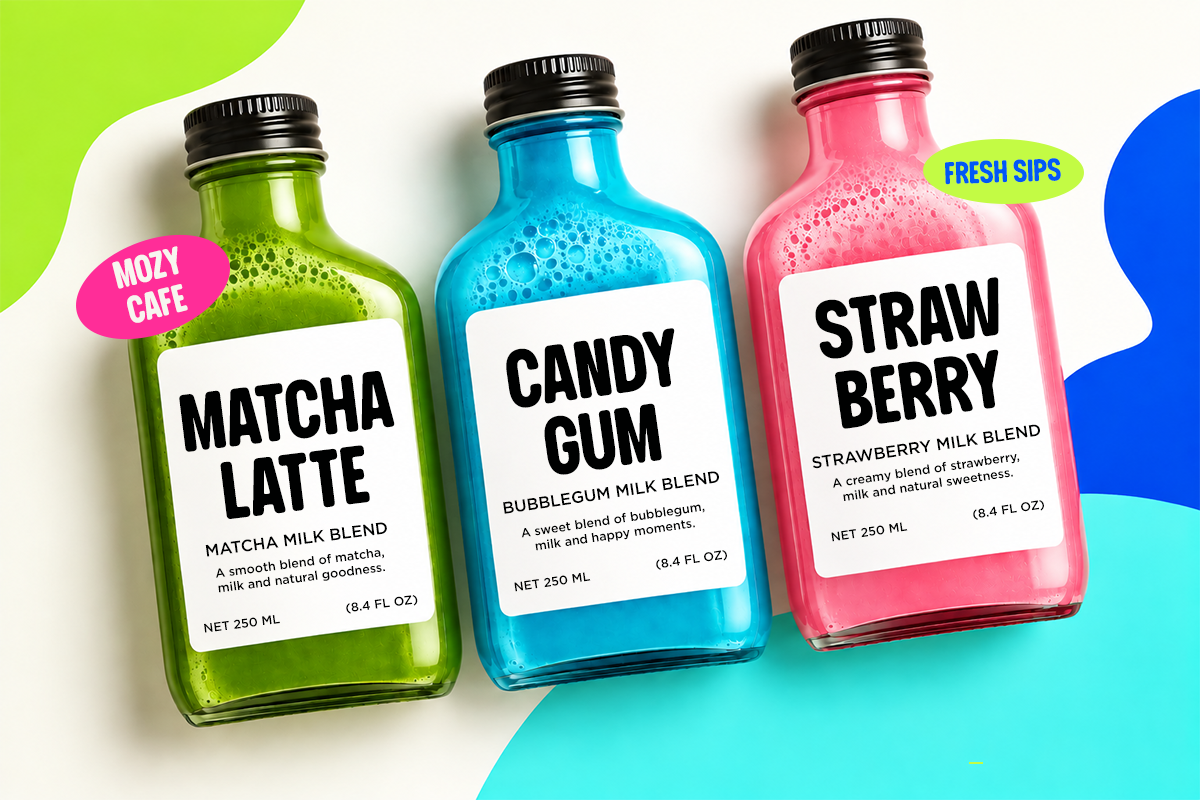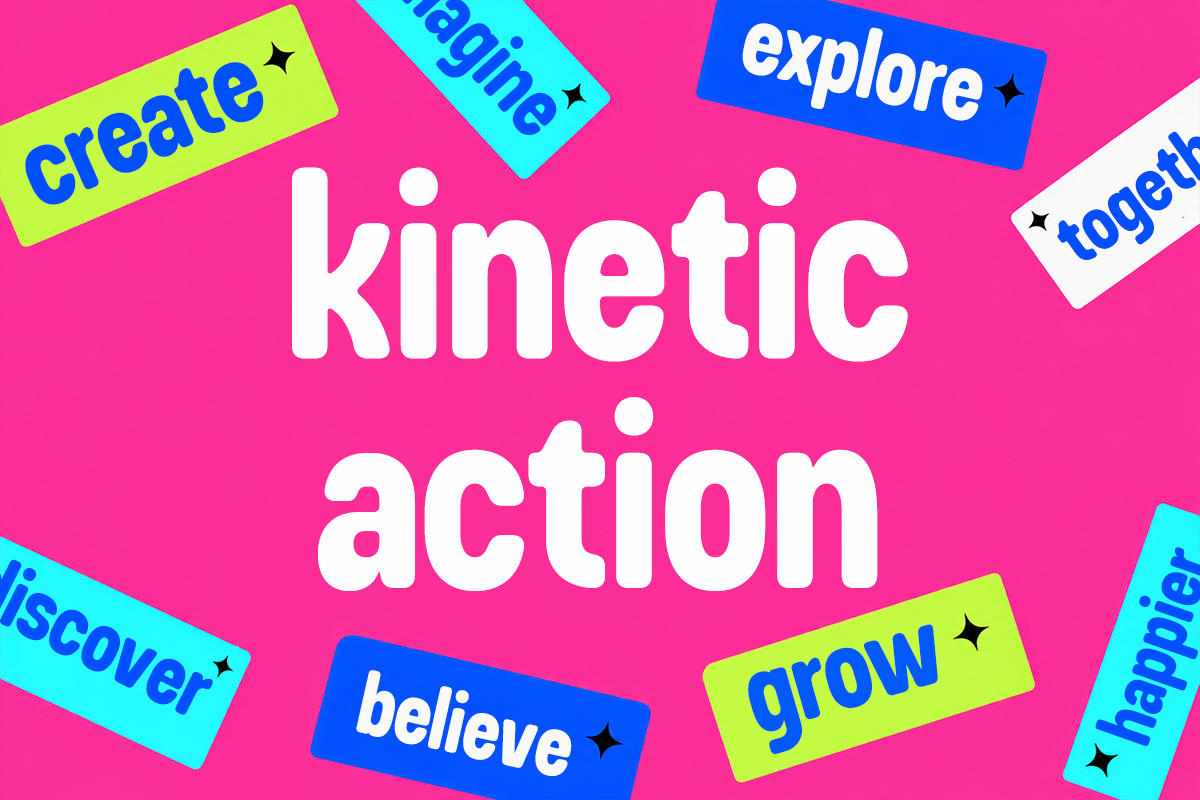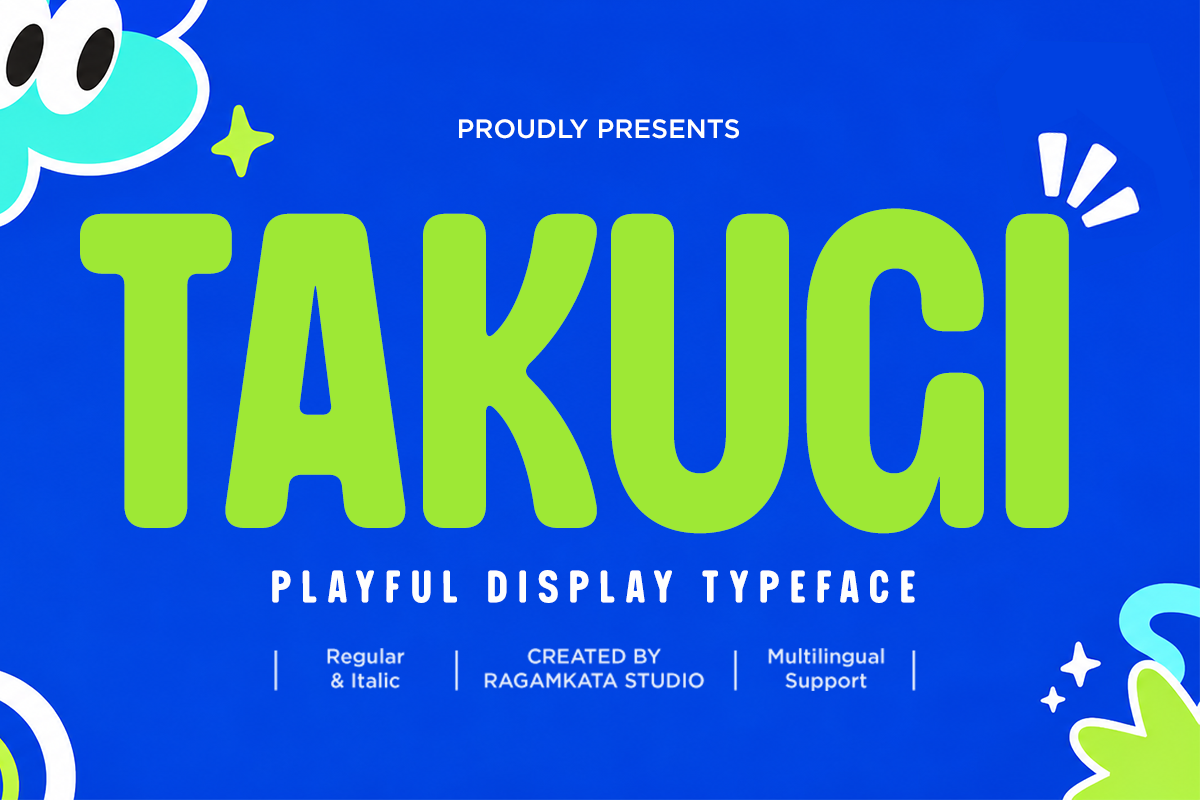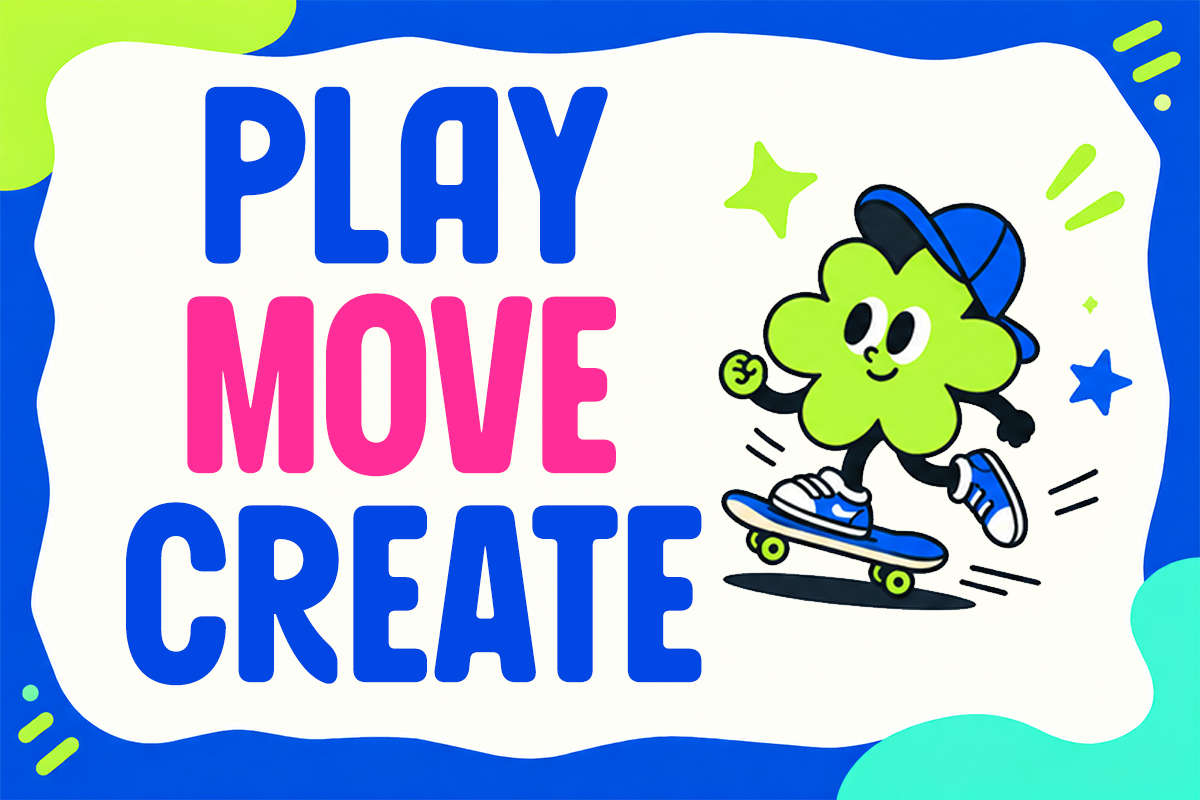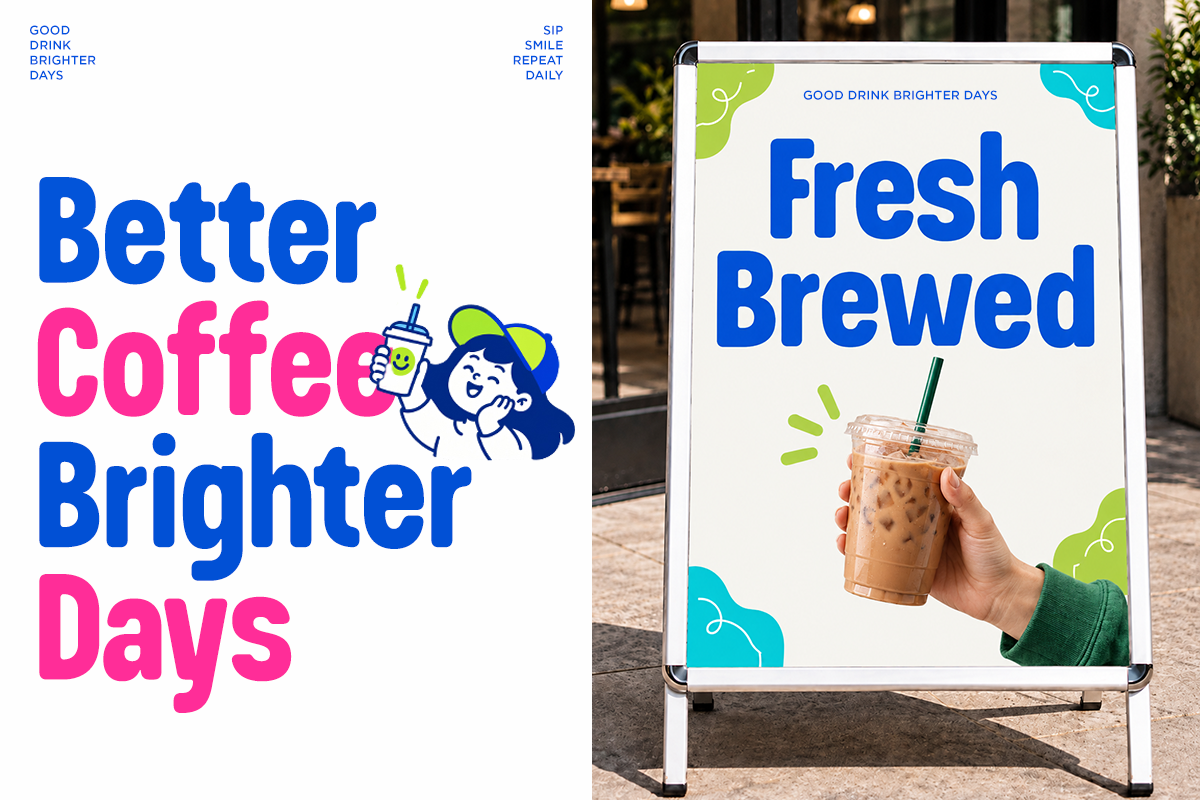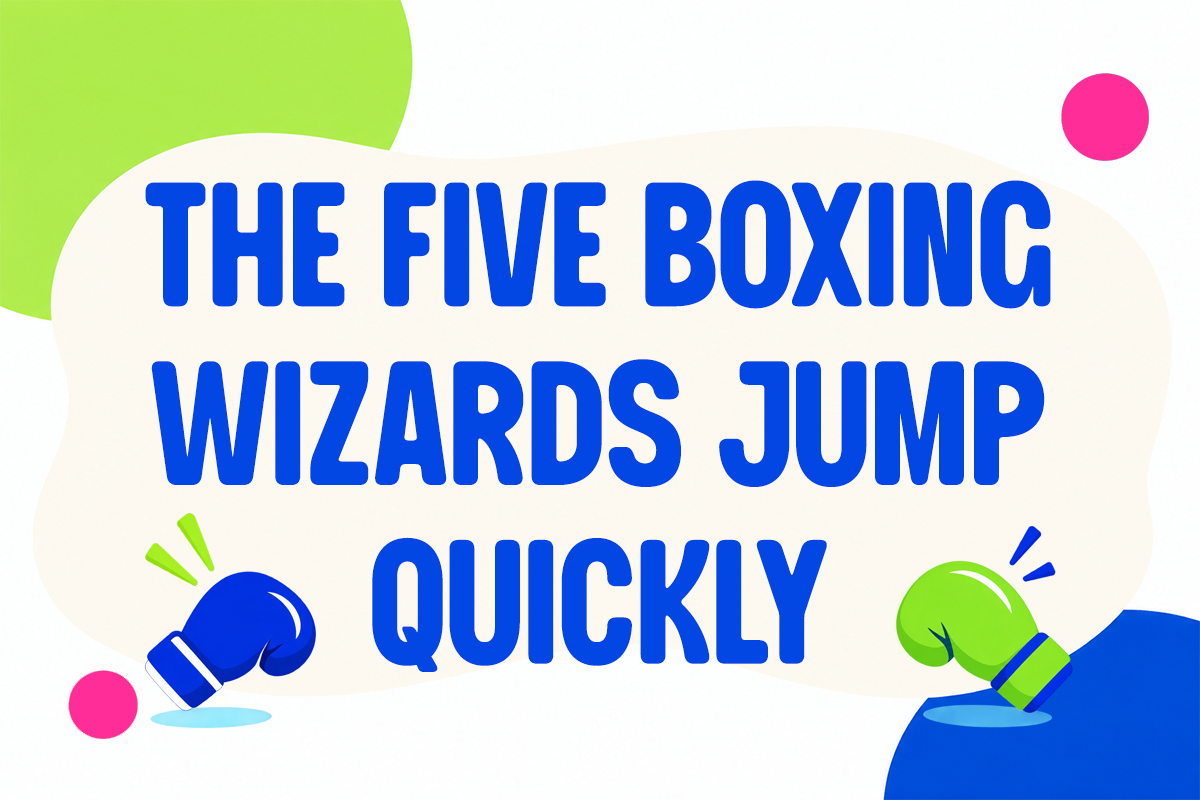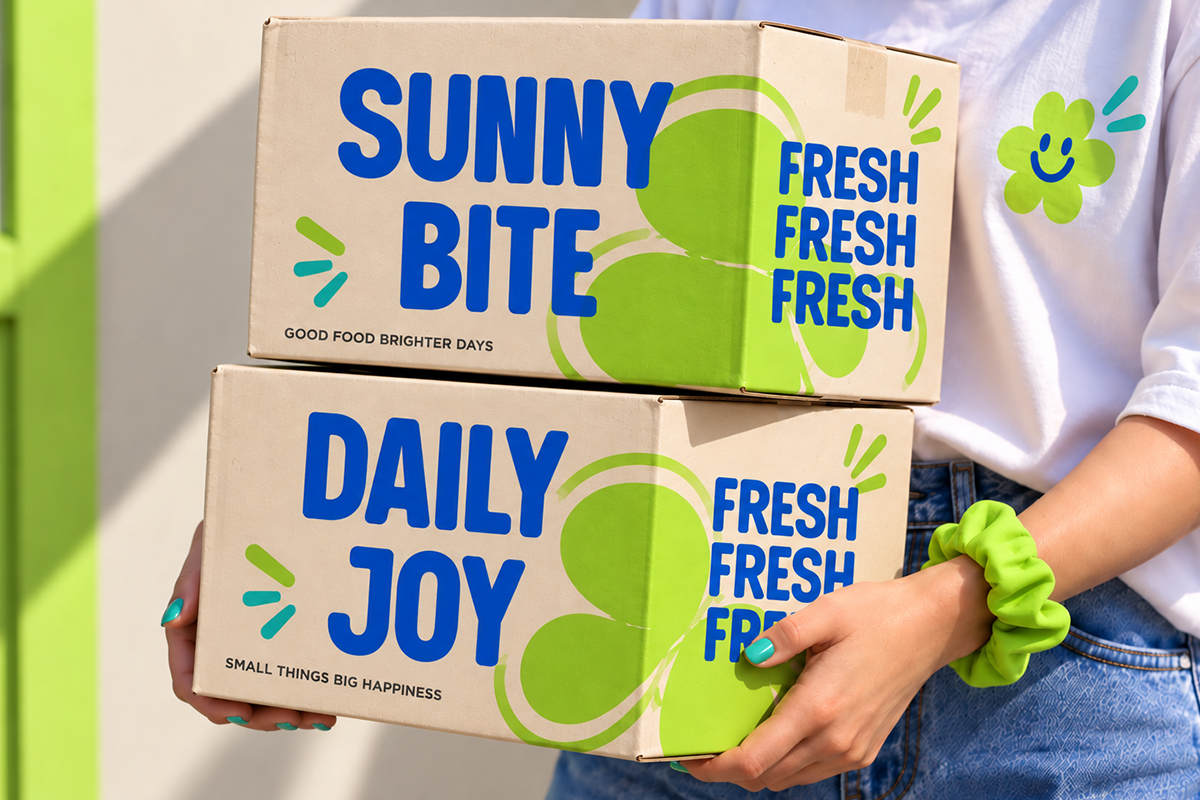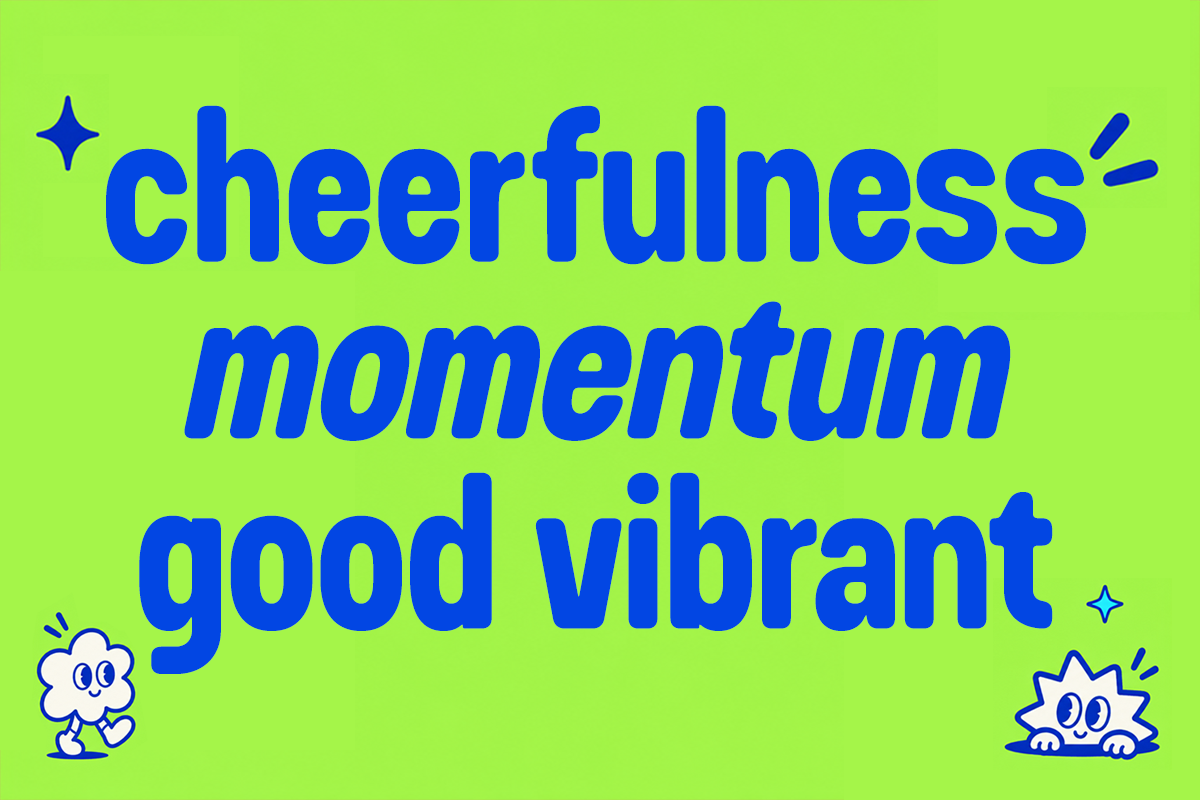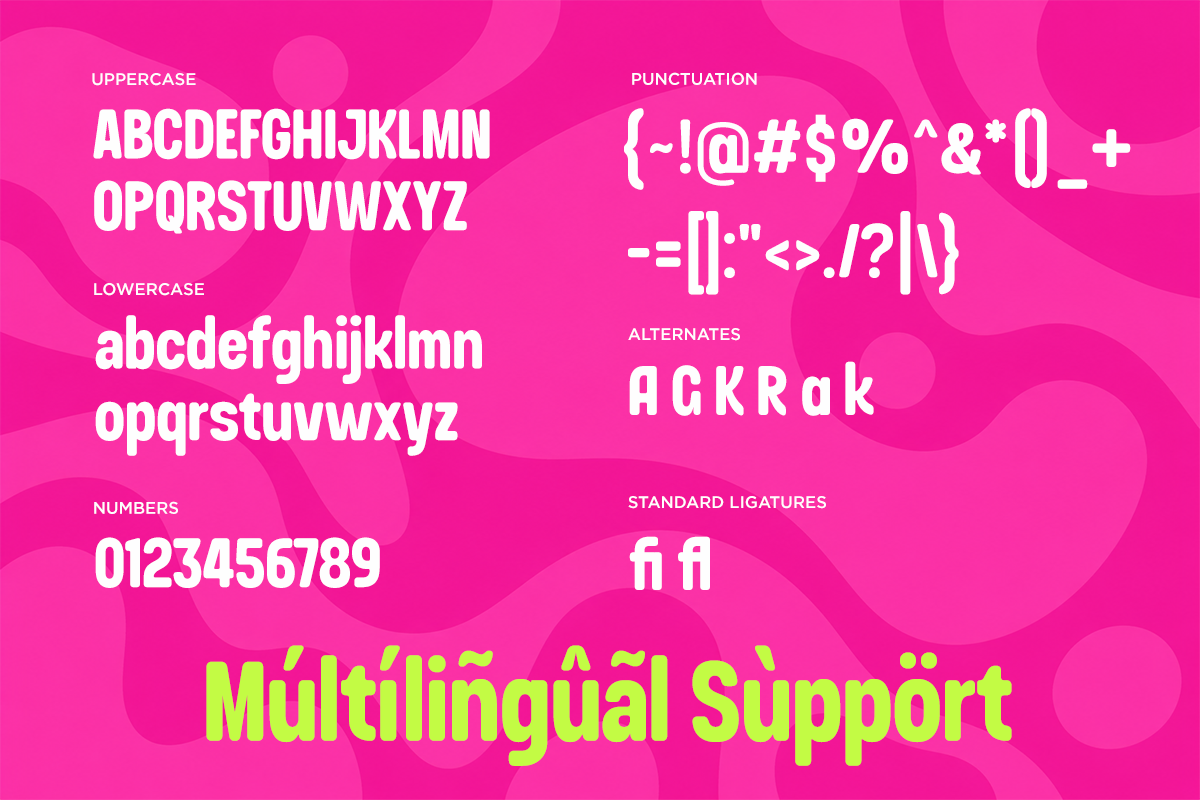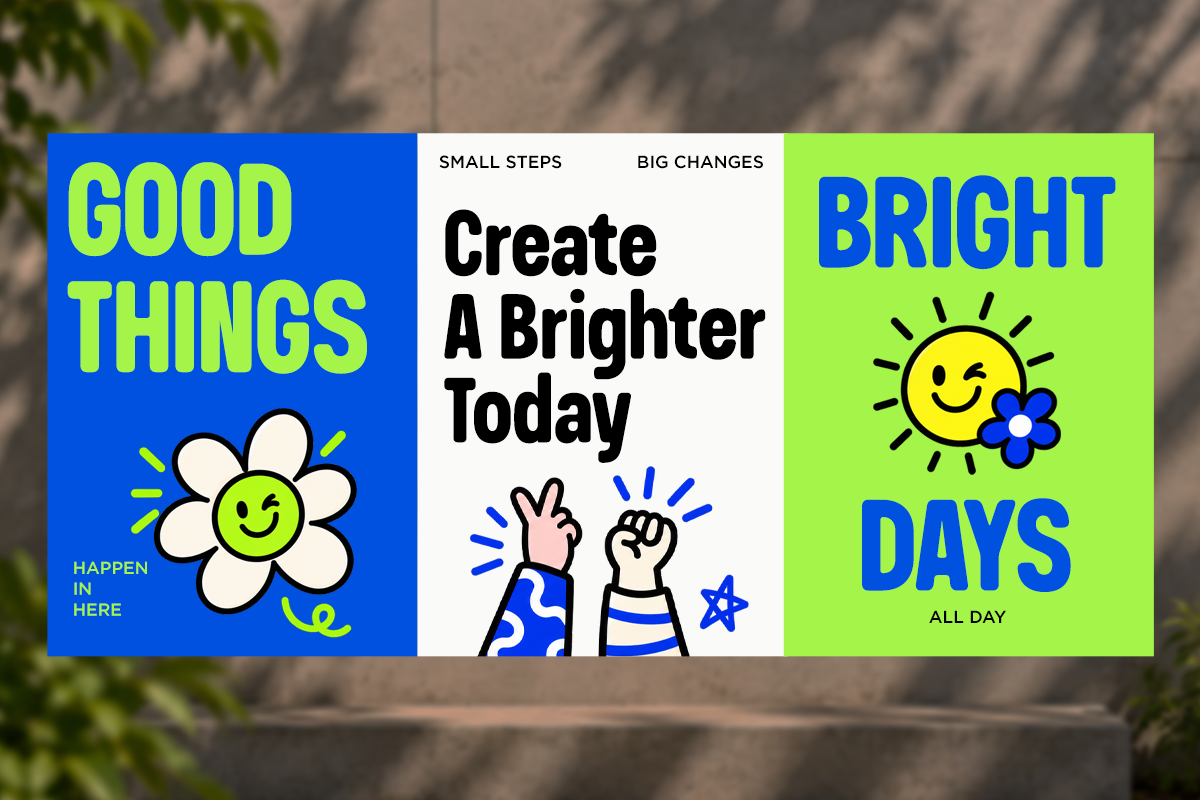
Takugi - Condensed Rounded Sans Font
**Takugi **is a playful condensed display font designed to bring a fun, energetic, and expressive character to your creative projects. With its distinctive shapes and friendly personality, Takugi is perfect for designs that need strong visual impact while maintaining a youthful and approachable feel.
Takugi works beautifully for posters, branding, packaging, social media graphics, advertising, editorial designs, headlines, logos, merchandise, invitations, and creative campaigns. Its bold display style makes it especially suitable for attention-grabbing titles, short phrases, and expressive typographic compositions.
With Regular and Italic styles, Takugi gives you more flexibility to create dynamic layouts, contrasting typography, and playful visual combinations. Whether you're creating a vibrant brand identity, a colorful poster, or eye-catching packaging, Takugi adds a distinctive contemporary personality to your design.
Regular and Italic
Special Alternates
Number, Symbols, and Punctuation